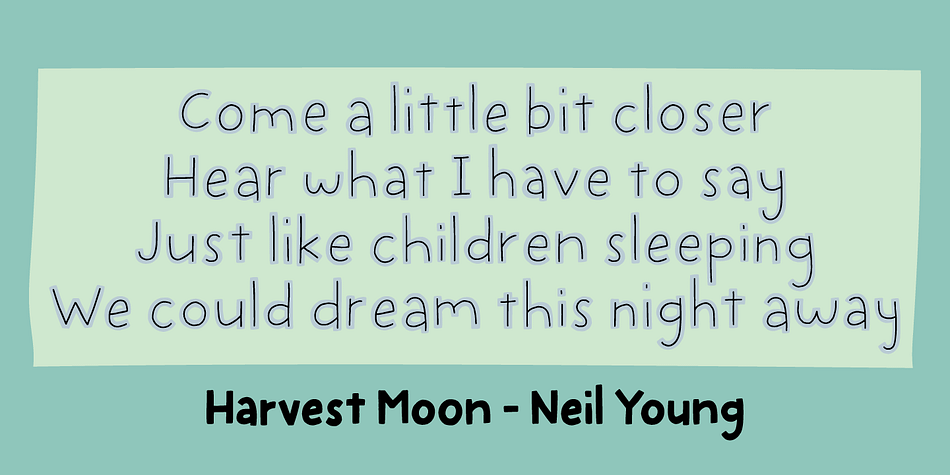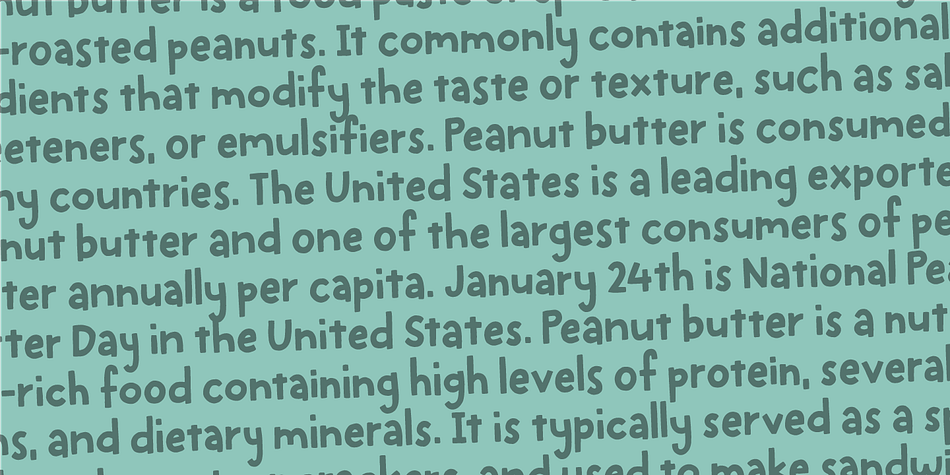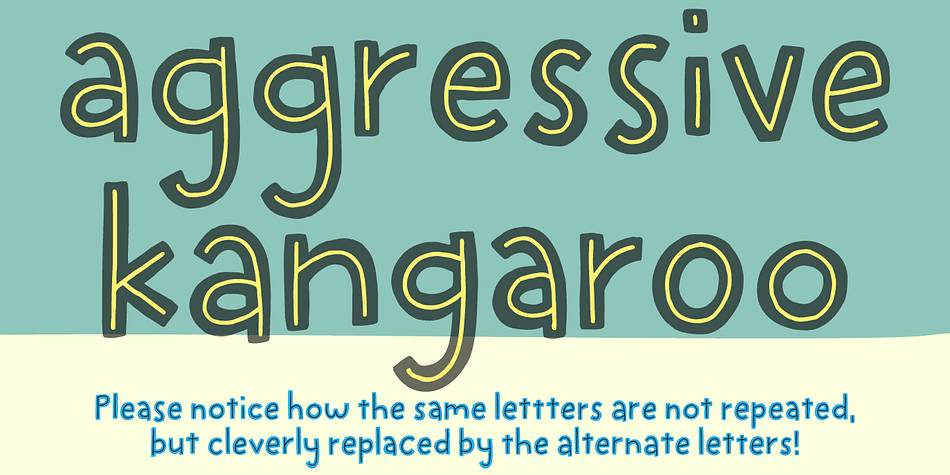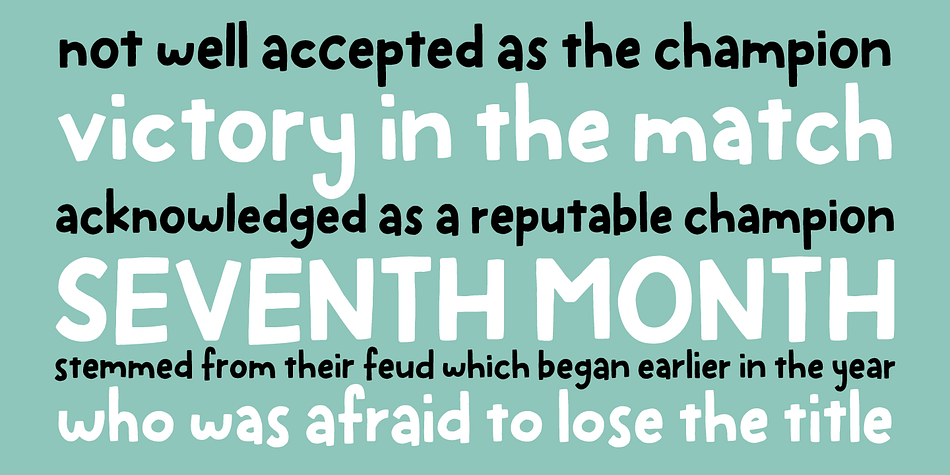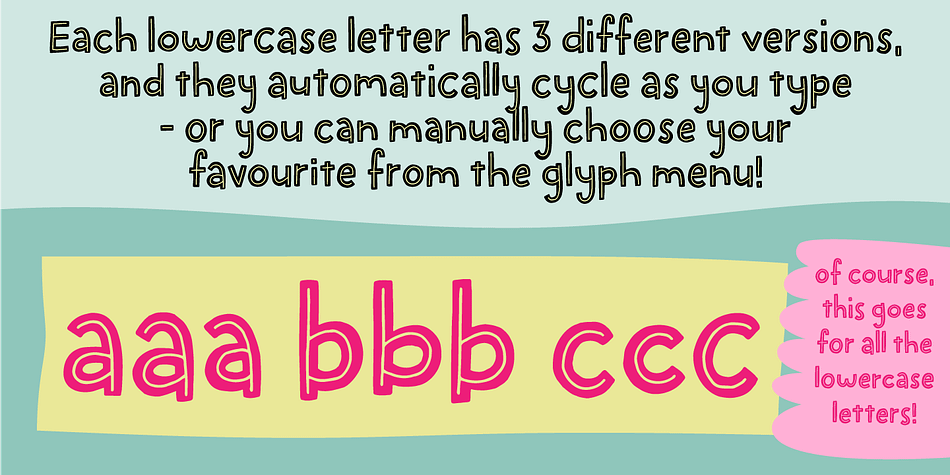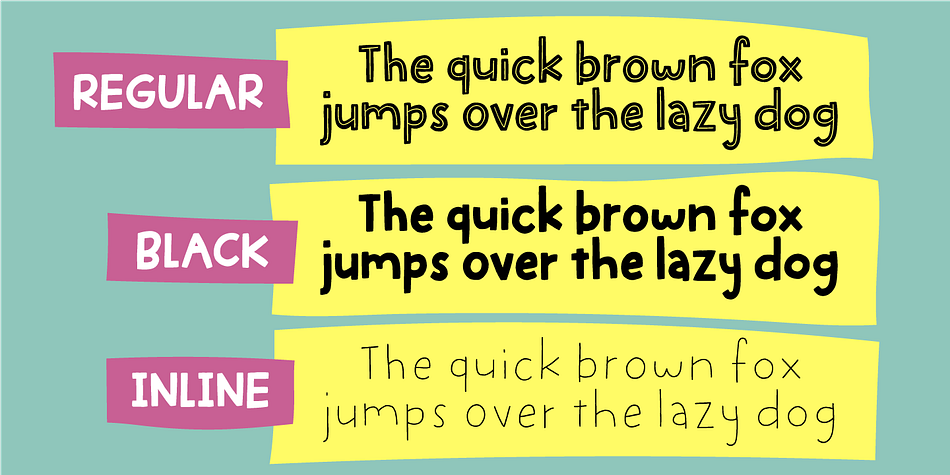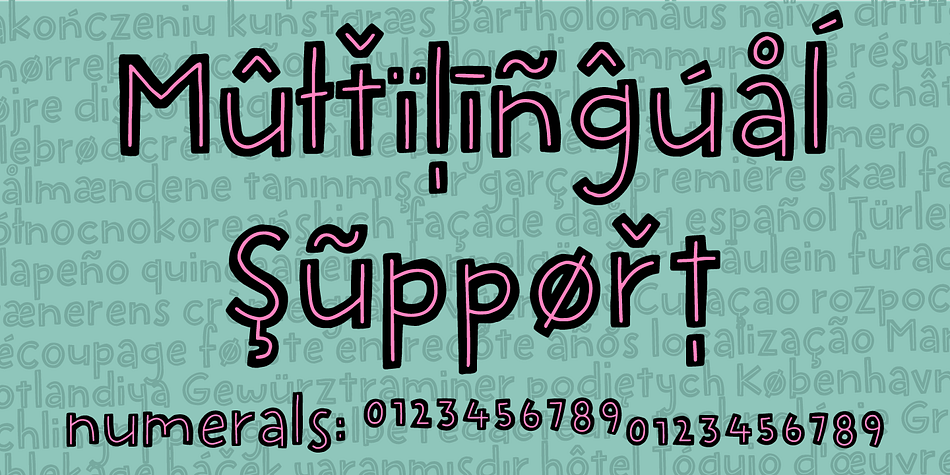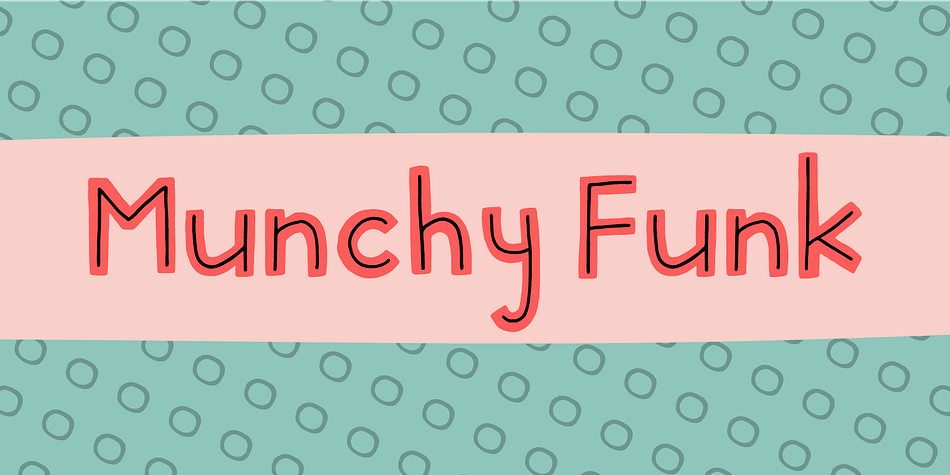
Designed by Jakob Fischer, Munchy Funk is a hand display, hand drawn and kids font family. This typeface has three styles and was published by Bogstav.
Say hello to my munchy and funky font - better known as “Munchy Funk”
Munchy Funk has its roots in basic sans fonts, but with a handmade and bouncy approach. I’ve added 3 different layers, that works well together - either as individual fonts, or as layered graphics. Furthermore, I have added 3 slightly different versions of each lowercase letter and multilingual support!